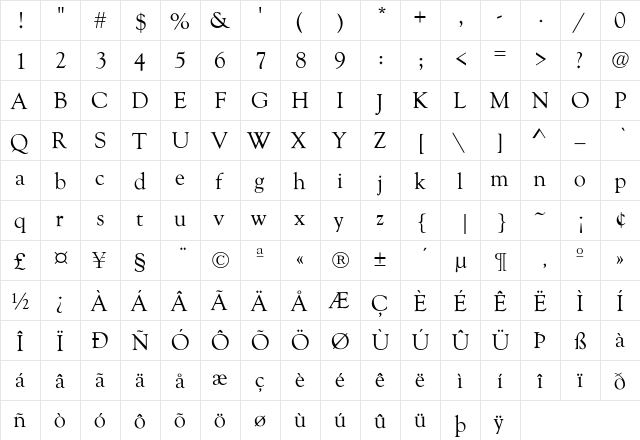
Frankovic Regular
Design Context for Frankovic Typeface
Frankovic takes a measured approach to typography — its balanced proportions and neutral character make it a reliable workhorse for both digital and print work.